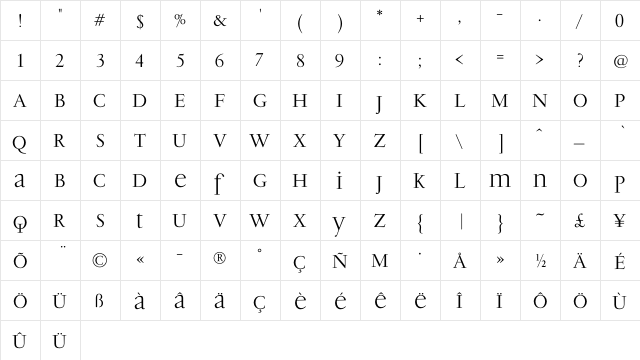
PF Garamond Classic Display Regular Font Preview
PF Garamond Classic Display Regular
Design Context for PF Garamond Classic Display Typeface
PF Garamond Classic Display wears its vintage influences proudly, with letterforms that recall mid-century signage, classic packaging, and nostalgia-driven design.
Font Pairing: Combine PF Garamond Classic Display with a simple slab or neutral sans — period-accurate companions reinforce the vintage feel without competing for attention.
Pro Tip: Use PF Garamond Classic Display for headlines and pull quotes rather than body copy — its personality is best appreciated in short, focused bursts.